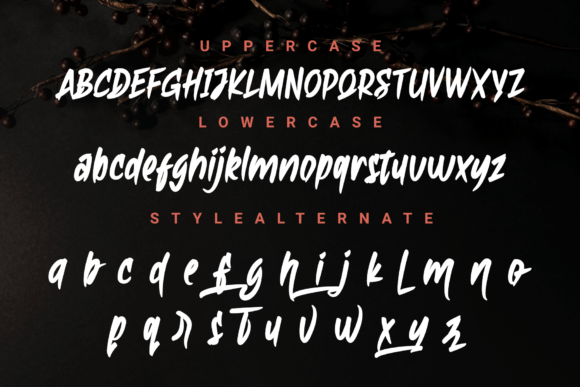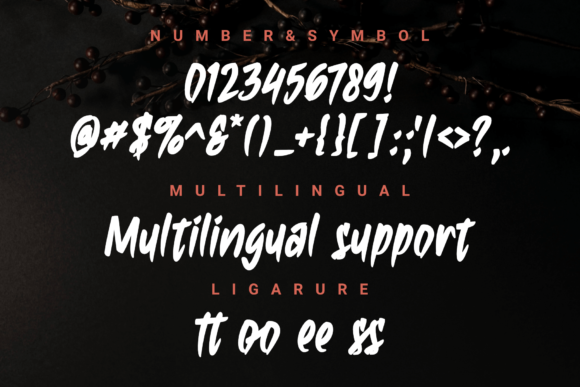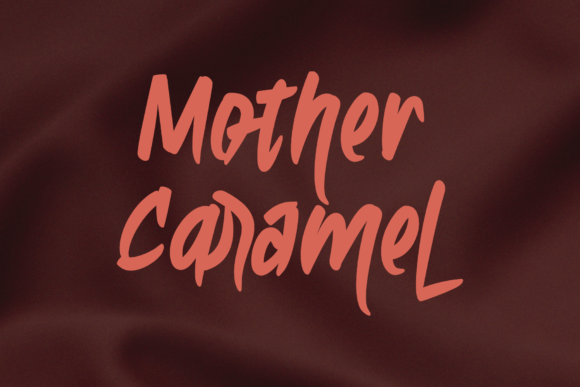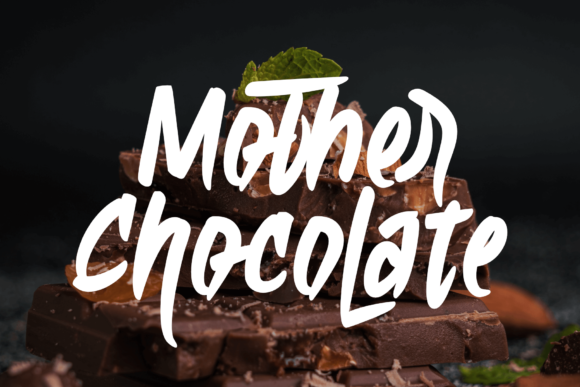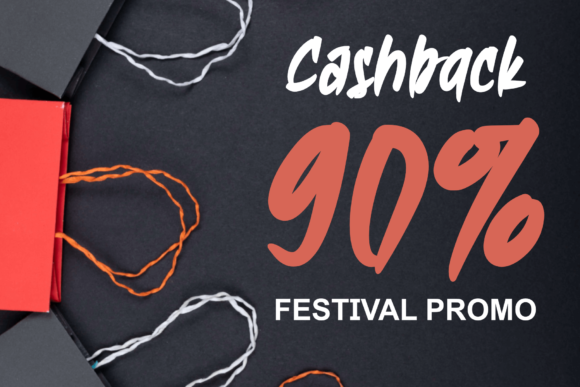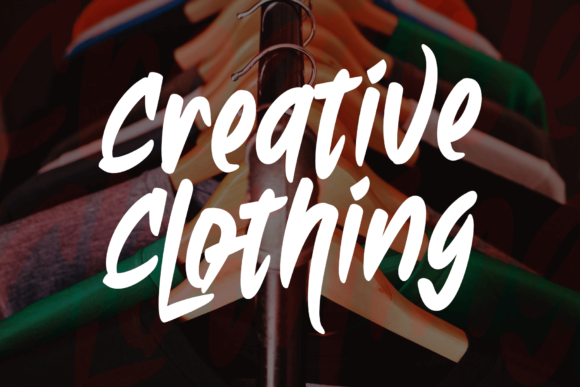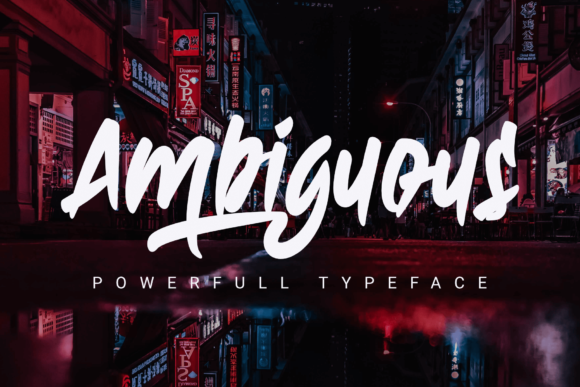
Introducing Ambiguous Font: A Bold and Quirky Handwritten Style
Are you tired of using the same old fonts for your design projects? Look no further than Ambiguous Font, a bold and unique handwritten font that’s perfect for adding a touch of personality to your logos, branding, social media, and DIY crafts. In this article, we’ll take a closer look at what makes Ambiguous Font so special and why it’s a must-have for designers and crafters alike.
Clean and Quirky Design
Ambiguous Font is a beautifully crafted handwritten font that’s both clean and quirky. Its unique design makes it stand out from more traditional fonts, adding a touch of whimsy and playfulness to any project. Whether you’re creating a logo, social media graphics, or a crafty DIY project, Ambiguous Font is the perfect fit.
One of the best things about Ambiguous Font is that it’s PUA (Private Use Area) encoded. This means that you can access all of the glyphs and swashes with ease, giving you even more creative freedom to customize your designs. With PUA encoding, you can easily insert special characters, ligatures, and other unique elements that will take your designs to the next level.
When it comes to creating a strong brand identity, a unique and memorable font is essential. Ambiguous Font is perfect for logos, business cards, and other branding materials. Its bold and quirky design makes it easy to stand out in a crowded market, and its clean lines ensure that your message is always clear and concise.
Great for Social Media Graphics
Social media is all about standing out in a crowded feed, and Ambiguous Font is the perfect tool to help you do just that. Whether you’re creating graphics for Instagram, Facebook, or Twitter, this font is sure to grab attention. Its unique design and playful vibe make it perfect for creating engaging and shareable content.
Ideal for Crafty DIY Projects
If you’re a crafter or DIY enthusiast, you’ll love Ambiguous Font. Its quirky design and bold lines make it perfect for creating signs, banners, and other decorative items. Whether you’re making something for yourself or as a gift, Ambiguous Font is sure to add a touch of personality and whimsy to your project.
Tips for Using Ambiguous Font
Here are a few tips for getting the most out of Ambiguous Font:
• Experiment with different sizes and colors to find the perfect combination for your project.
• Use the glyphs and swashes to add unique elements to your design.
• Pair Ambiguous Font with other fonts to create a unique and interesting contrast.
• Don’t be afraid to get creative and try new things – Ambiguous Font is all about experimentation and self-expression!
Ambiguous Font is a bold and unique handwritten font that’s perfect for designers and crafters alike. Its clean and quirky design, PUA encoding, and versatility make it a must-have for any creative project. Whether you’re creating logos, social media graphics, or DIY crafts, Ambiguous Font is sure to add a touch of personality and whimsy to your work. So why wait? Download Ambiguous Font today and start creating something amazing!
• Bold and unique handwritten font
• Clean and quirky design
• PUA encoded for easy access to glyphs and swashes
• Perfect for logos, branding, social media graphics, and DIY crafts
• Easy to use and customize